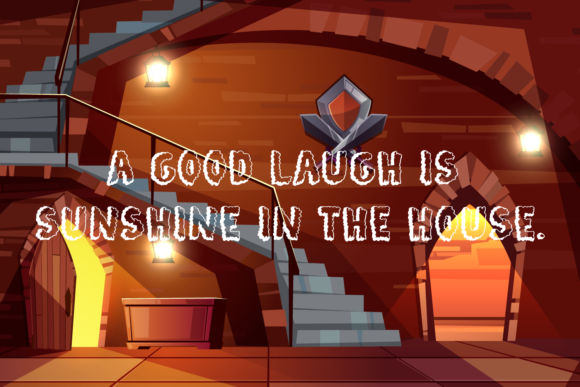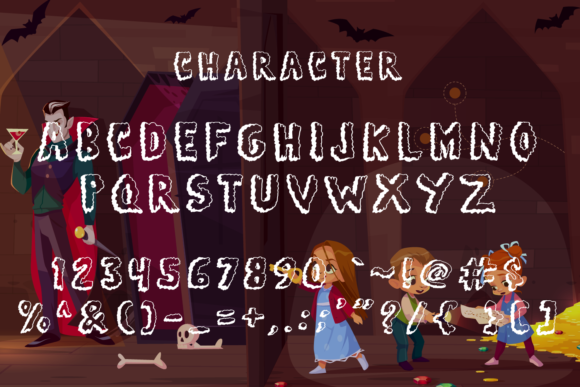
Dungeon Hunter Font
Dungeon Hunter Font is a cool and adaptable display font. This font is suitable for designs such as t-shirts, sportswear, posters, logos, advertisements, clothing, and more.
Dungeon Hunter Font is a cool and adaptable display font. This font is suitable for designs such as t-shirts, sportswear, posters, logos, advertisements, clothing, and more. Whatever the topic, this font will be a great asset to your font collection, as it has the potential to enhance any creation.